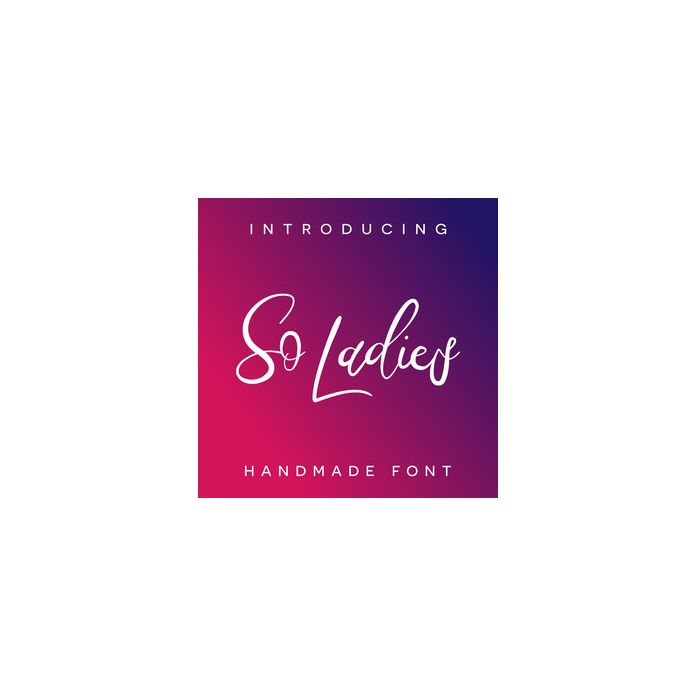
so ladies script font
So Ladies is a fun and quirky script perfect to spice up any boring ole design! Plus it comes with full international language support.